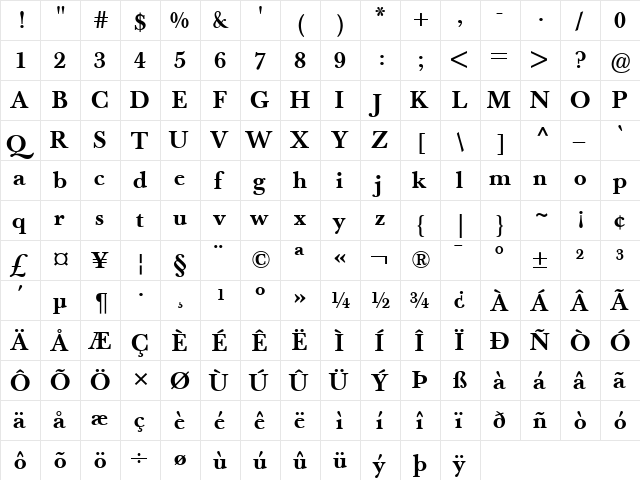
Berthold Baskerville Book Bold Font Preview
Berthold Baskerville Book Bold
Design Context for Berthold Baskerville Book Typeface
Berthold Baskerville Book offers clean, dependable letterforms without strong stylistic allegiance, making it a practical choice for designers who need flexibility. Its bold stroke weight gives it real presence on the page.